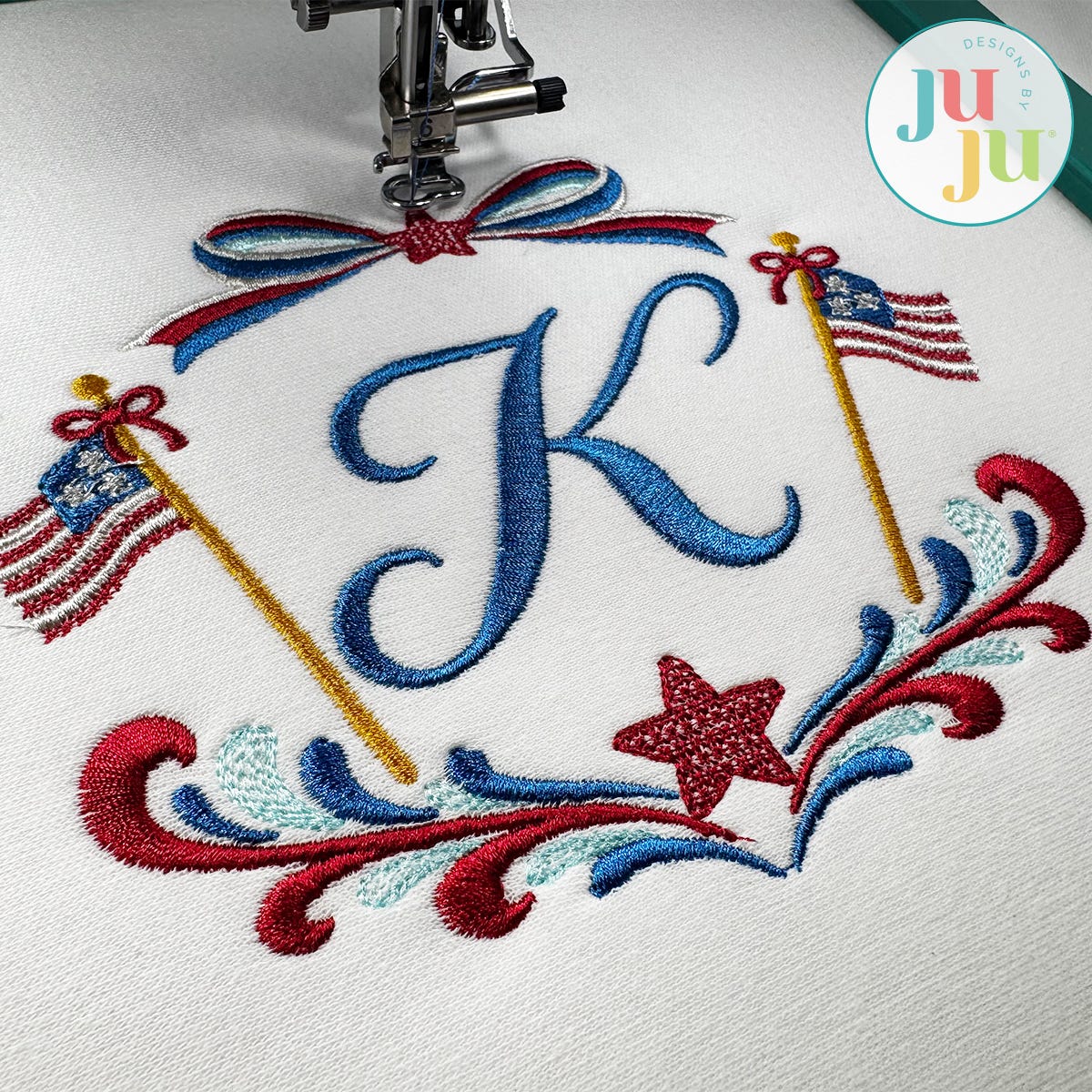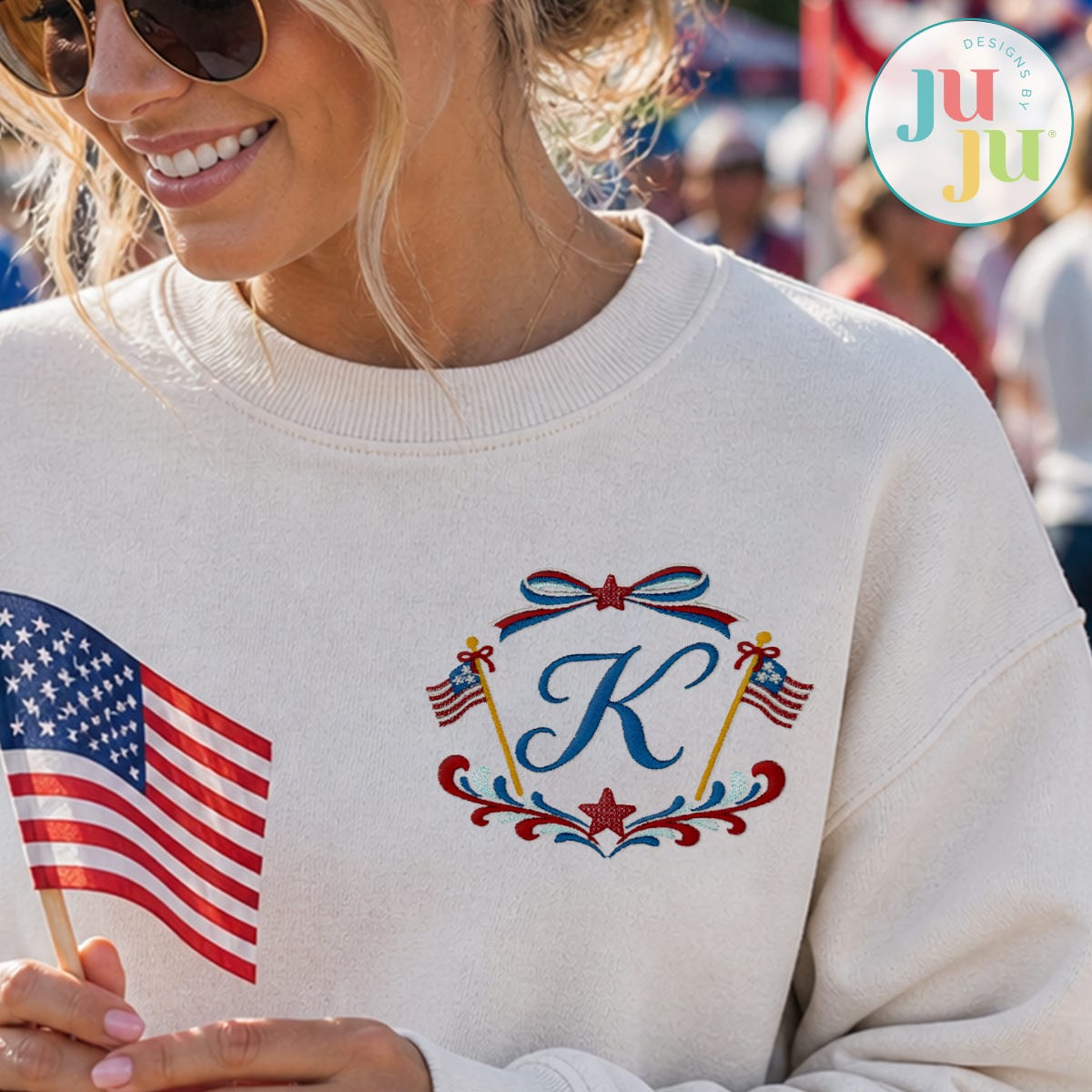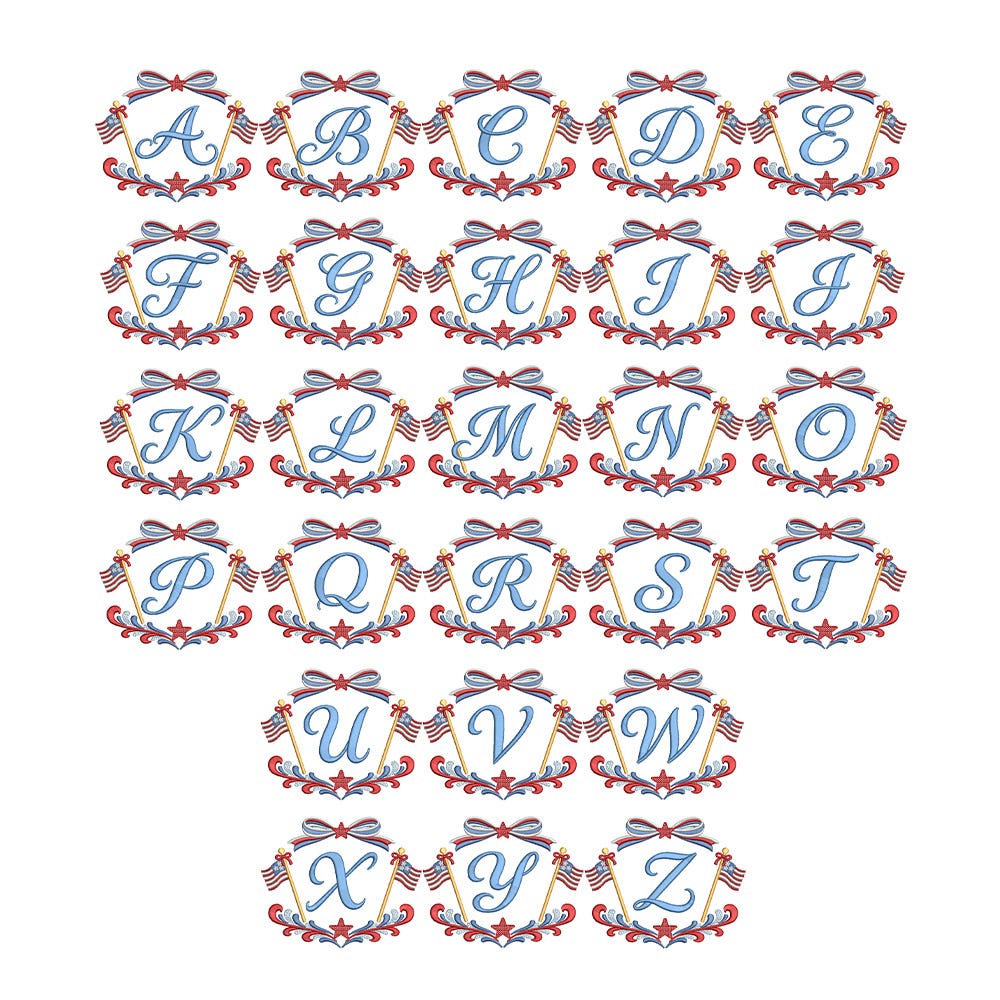
Flags and Bows Patriotic Satin Stitch Monogram Embroidery Font
Your monograms will shine with patriotic charm using our Flags and Bows Patriotic Monogram! This embroidery-only monogram features elegant script-style letters framed by decorative bows, flags, and classic Americana elements for a festive and timeless look.
Each letter is embellished with a variety of embroidery stitch types to create beautiful detail, dimension, and texture. The decorative frames add a polished, finished look, making each design perfect for personalizing gifts, apparel, and seasonal decor.